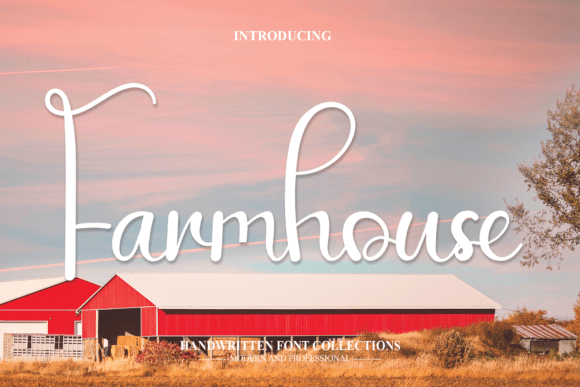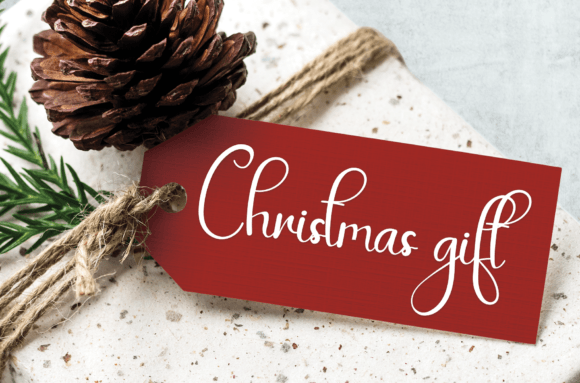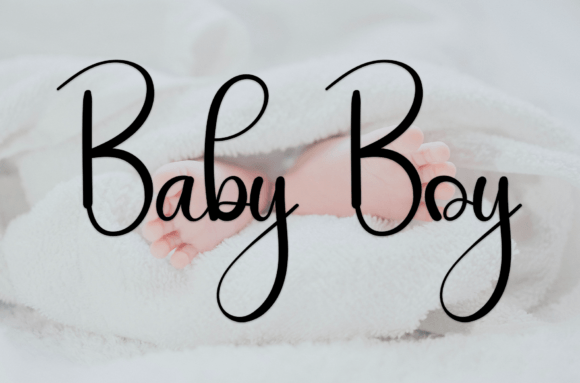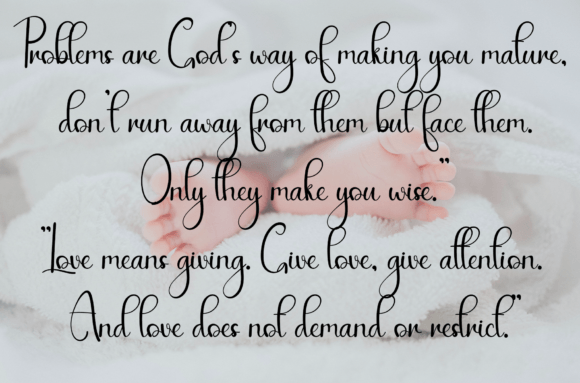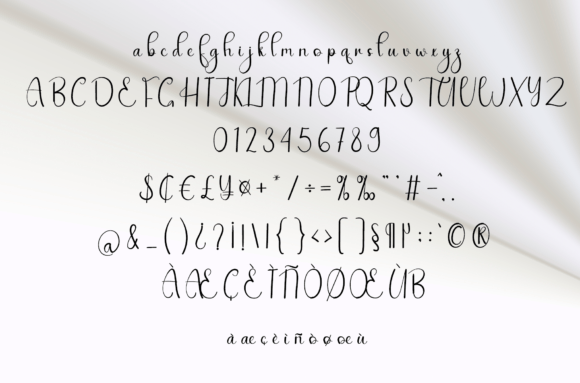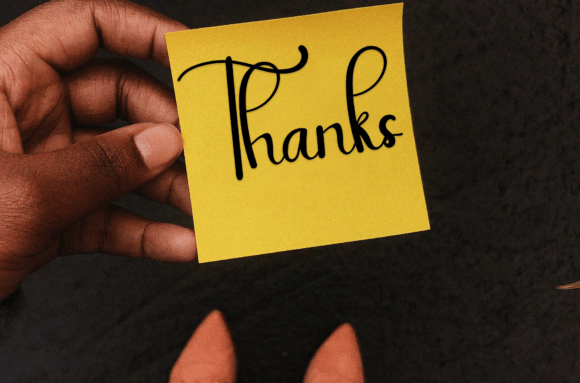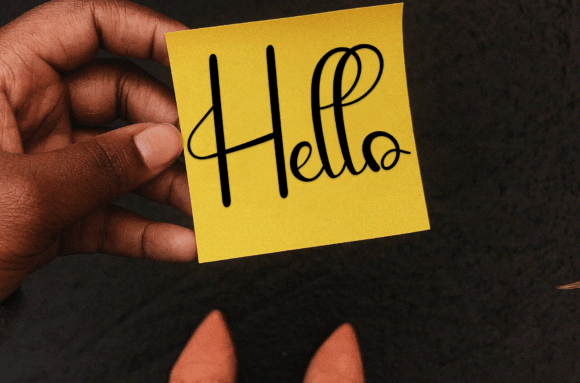
Farmhouse Font
About Farmhouse Font
Farmhouse Font is a warm, inviting handwritten typeface that captures the charm of rustic simplicity with a modern twist. Designed to bring a personal, handcrafted feel to your projects, this font is perfect for those looking to add authenticity and comfort to their visual storytelling. Whether you’re working on wedding invitations, heartfelt greeting cards, farmhouse signage, or cozy digital content, Farmhouse Font offers the perfect touch of friendliness and charm.
Handwritten with Heart
The essence of Farmhouse Font lies in its natural strokes and playful letterforms. Each character is drawn with gentle curves and thoughtful spacing, evoking the feel of a handwritten note from a loved one. It offers a relaxed rhythm that’s easy to read, while still feeling unique and full of personality. The slight variations in stroke weight give the font a human, organic feel that sets it apart from overly polished scripts.
Perfect for Personal and Commercial Use
This font isn’t just beautiful—it’s also highly versatile. It works well across a variety of media, including:
• Wedding Invitations & Save-the-Dates
• Greeting Cards & Gift Tags
• Farmhouse Signs & Home Decor Prints
• Logo & Branding Projects
• Social Media Posts & Digital Content
• Product Packaging & Labels
Its clean, soft lines make it legible at small sizes, while its personality shines through at large scales—perfect for headers, signage, and impactful quotes.
Features and Benefits
• Multilingual Support: Ideal for a global audience or international branding.
• Stylish Yet Readable: A perfect balance between decorative flair and readability.
• Crafted for Coziness: Brings warmth and friendliness to everything it touches.
Bring Rustic Elegance to Your Designs
If your brand or project leans into vintage, rustic, or cottage-core aesthetics, Farmhouse Font is a natural fit. It resonates with themes of simplicity, comfort, and authenticity—making it an excellent choice for creators, bloggers, crafters, and boutique business owners. Whether you’re designing for print-on-demand products, creating DIY art, or building a heartfelt brand, this font will make your work feel genuine and lovingly made.
Why You’ll Love It
Farmhouse Font isn’t just another script font—it’s a creative companion. Its charming look is matched by its technical flexibility, making it both beautiful and functional. You’ll find yourself reaching for it again and again when you need a handwritten font that feels real, welcoming, and full of heart.